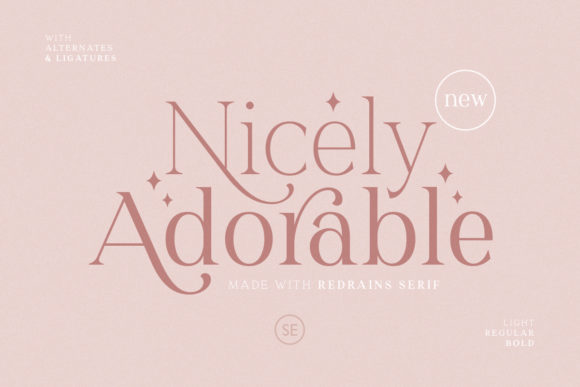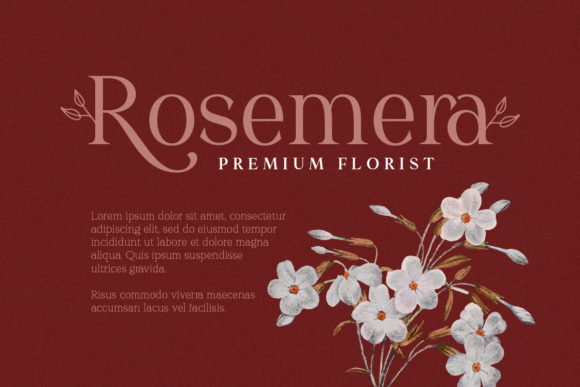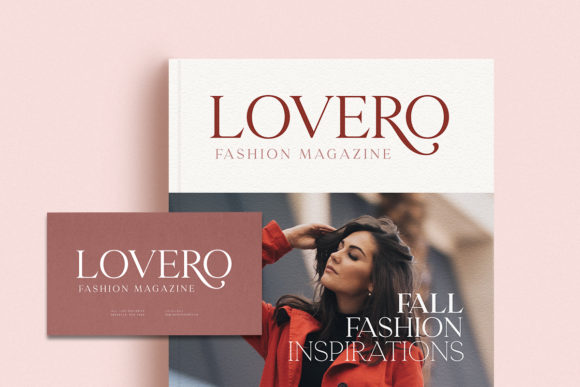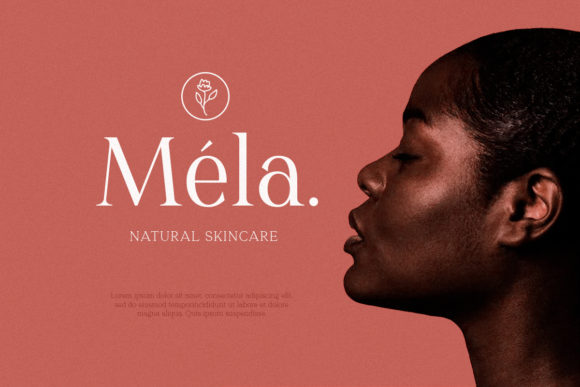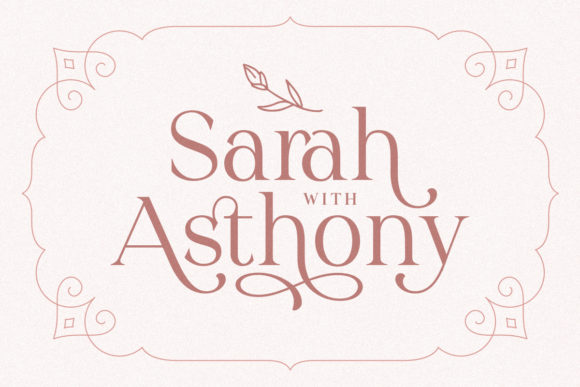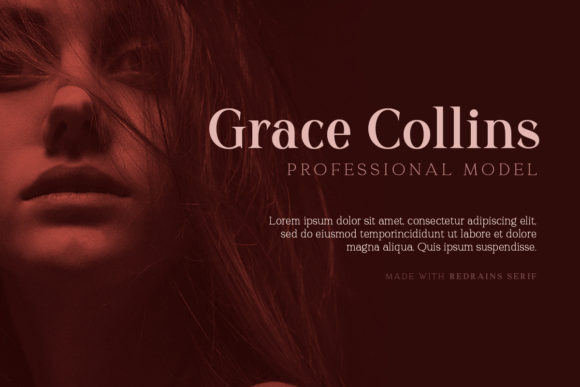
Introduction to Redrains Font
Redrains is a classic and elegant serif font.
It is defined by a smooth touch and is perfect for fashion branding or editorial designs Add it confidently to your projects, and you wonโt be disappointed.
Redrains Font offers exceptional quality and versatility, making it a valuable addition to your design toolkit. Whether you’re creating for personal projects or commercial use, Redrains Font delivers professional results.